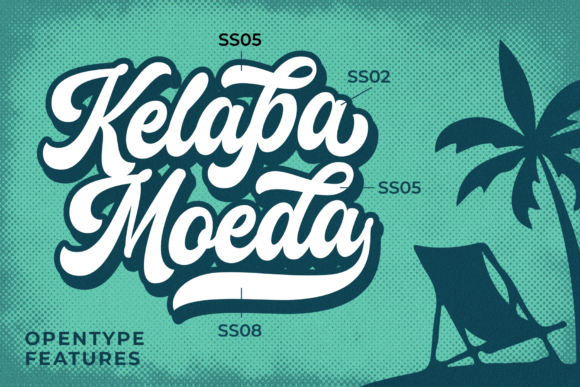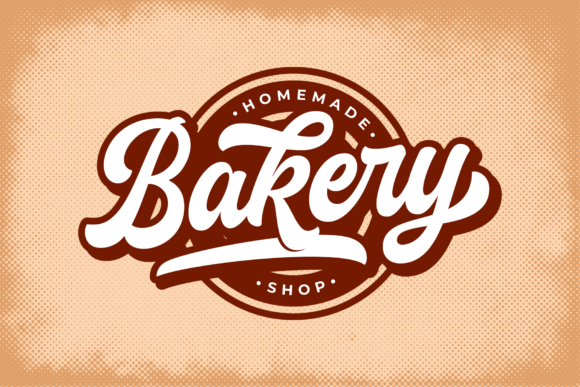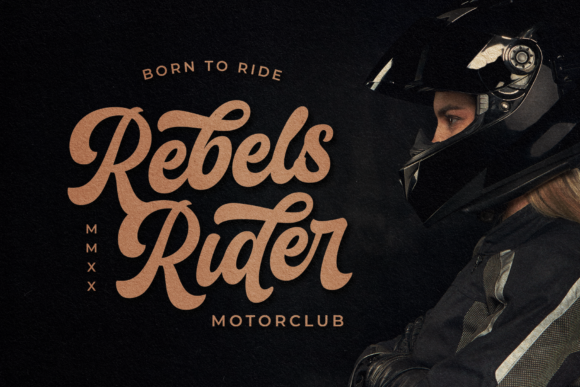
Introduction to Milenia Font
Milenia is a gorgeous and bold handwritten font, crafted to give your headlines and logotype projects a retro touch.
This font reads as strong, confident, and dynamic and can add tons of nostalgic character to your designs Milenia is PUA encoded which means you can access all glyphs and swashes with ease.